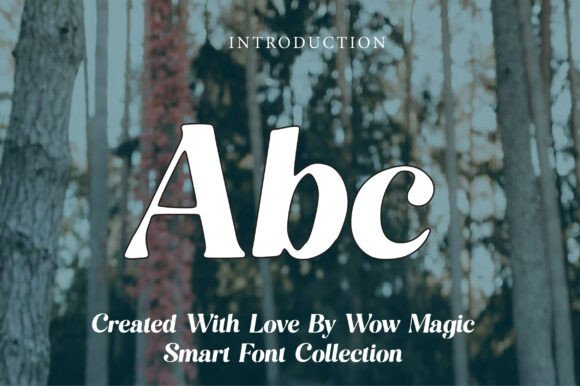
Introduction to Heavy Teardrop Font
Heavy Teardrop is a bold and stylish serif display font featuring distinctive teardrop terminals and smooth, classic curves.
Its strong contrast and elegant ink-trap inspired details create a premium vintage-meets-modern look that feels confident, editorial, and highly readable The teardrop endings add a unique personalityโ€”perfect for designs that need a standout, classy headline.
Key Features of Heavy Teardrop Font
Why Choose Heavy Teardrop Font?